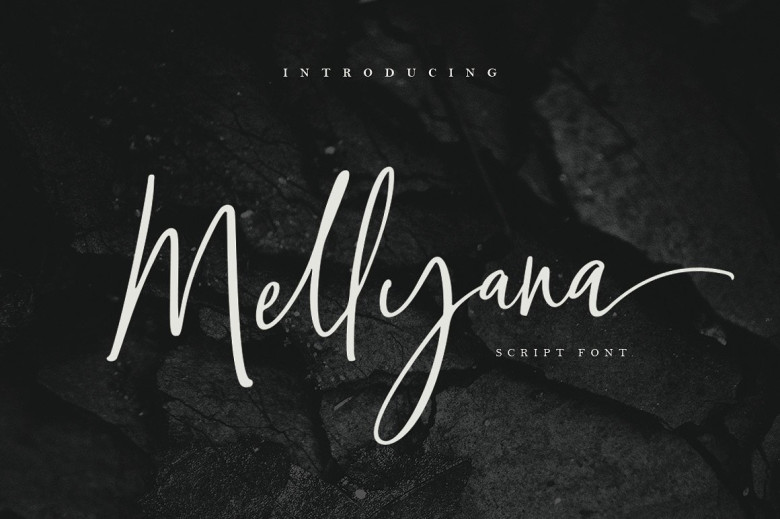
Mellyana Script Font
A stylized handwriting style, youthful and stylish. It will satisfy you in all your designs. Mellyana Script is free-flowing, feminine, fashionable and friendly. Mellyana is perfect for fashion, e-commerce brands, trend blogs, or any business that wants to appear classy and chic.